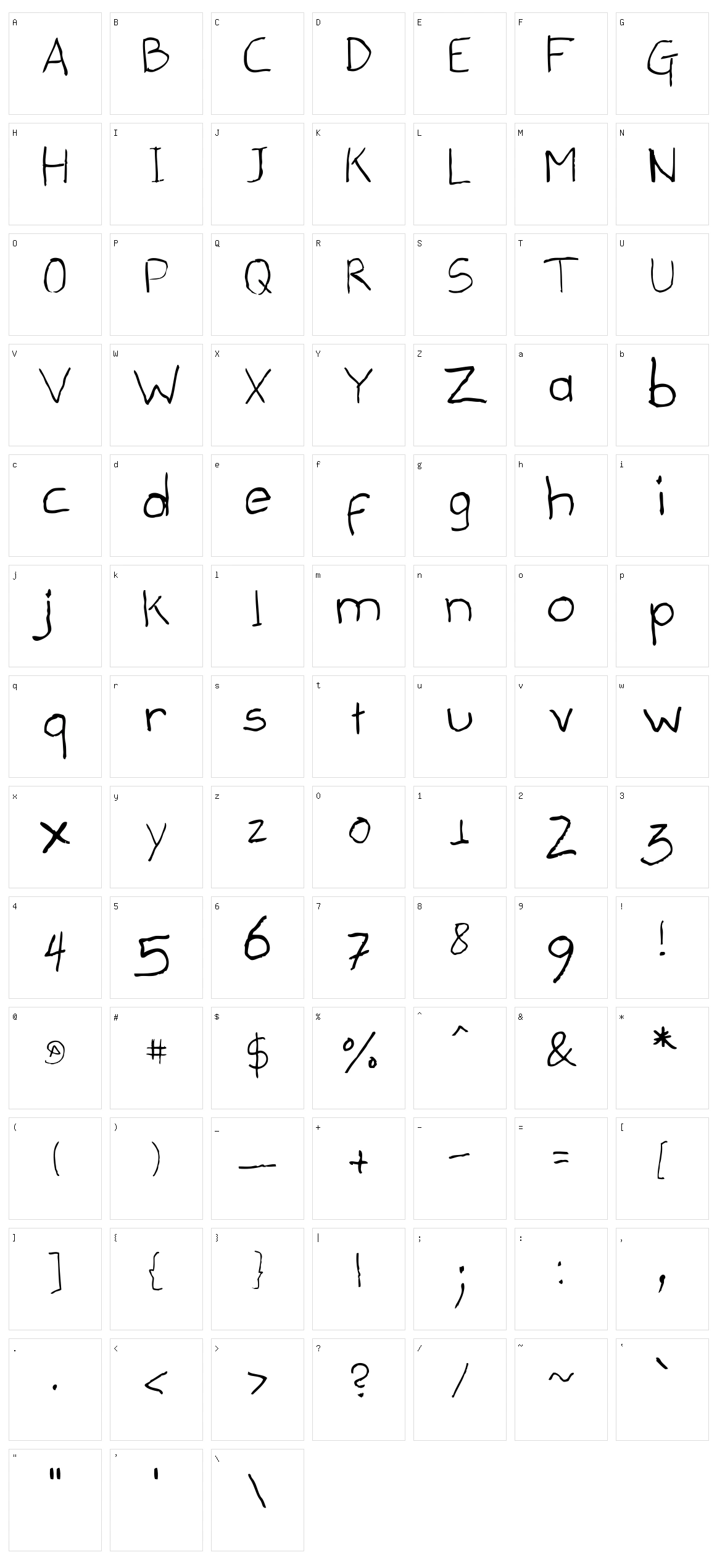
The free font Draconian Mechanical Pencil is carefully designed by Nicolas Coronado, showcasing a thoughtful balance of creativity and usability and falls under the Script font style. When you download the ZIP file, it contains only 32.45 KB of font files, making it lightweight and quick to download. Please review the license details below to understand permitted usage and distribution rights. If license information is not available, we recommend using this font for personal projects only or contacting the author directly for commercial usage permissions.